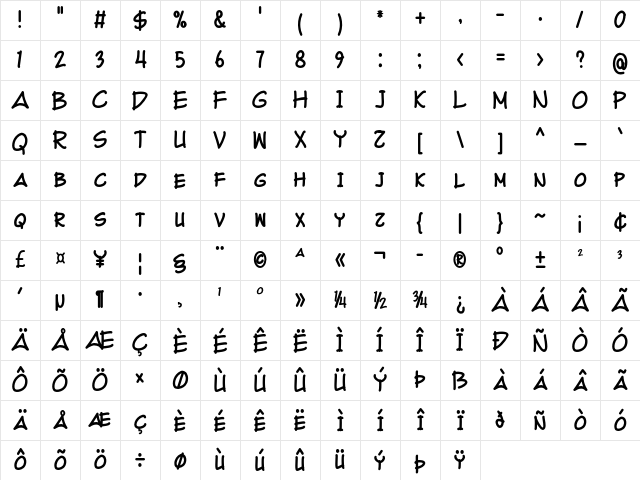
Fuki Maki is a composed and adaptable typeface that performs quietly and consistently across a wide range of design contexts. Its bold stroke weight gives it real presence on the page. Its narrow stance lets it pack a punch even in space-constrained designs.
Pro Tip: Use Fuki Maki in both headline and body roles to test its range before committing to a single application.